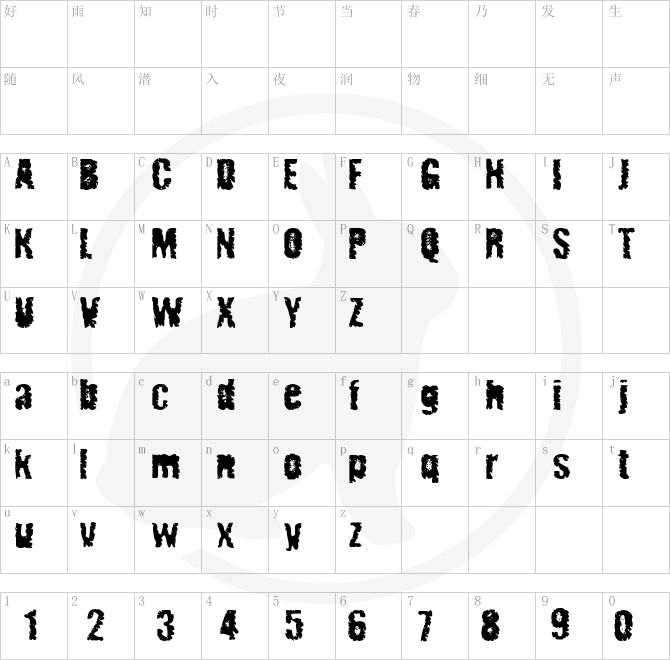
• Font Name:Radiated Pancake
Radiated-Pancake.ttf is a very beautiful artistic font, Radiated-Pancake.ttf is widely used in the design and printing of various books and pictures,Radiated-Pancake.ttf has a strong visual impact,Radiated-Pancake.ttf is a commonly used font in newspapers, magazines and books, and is used in posters, e-commerce Poster design, store design, logo design, font design and other fields.Radiated-Pancake.